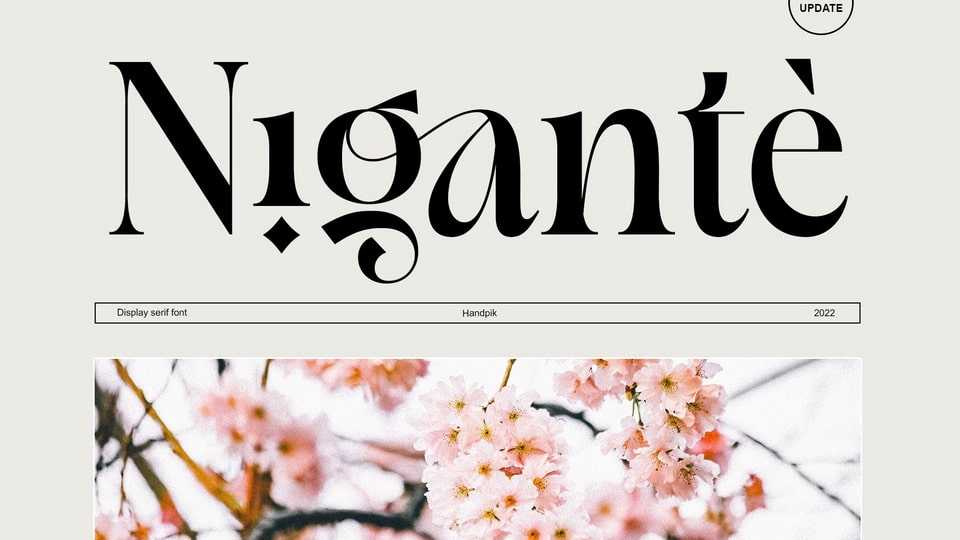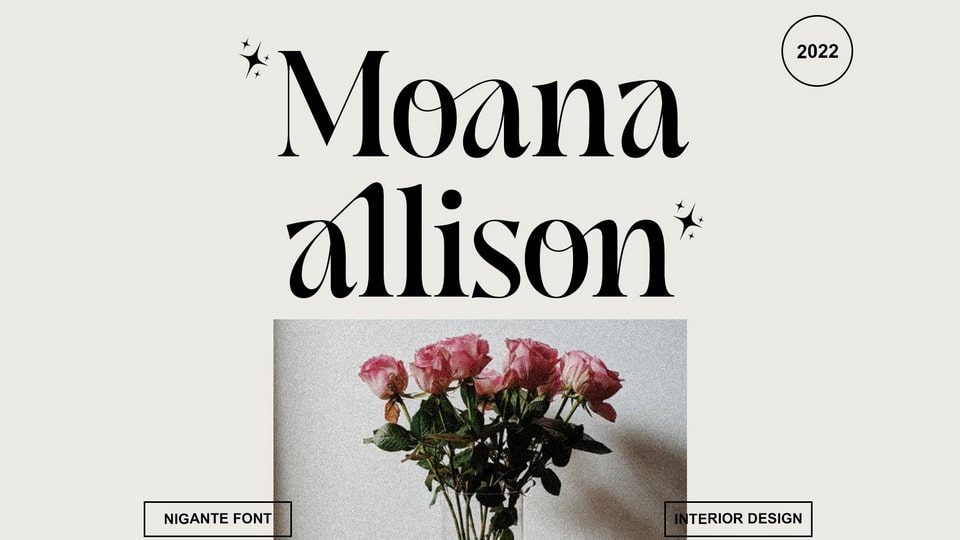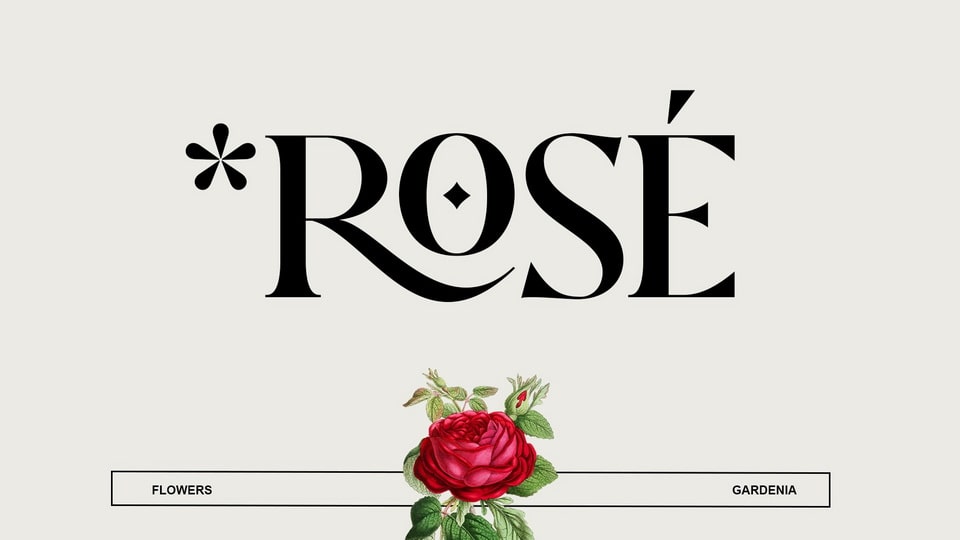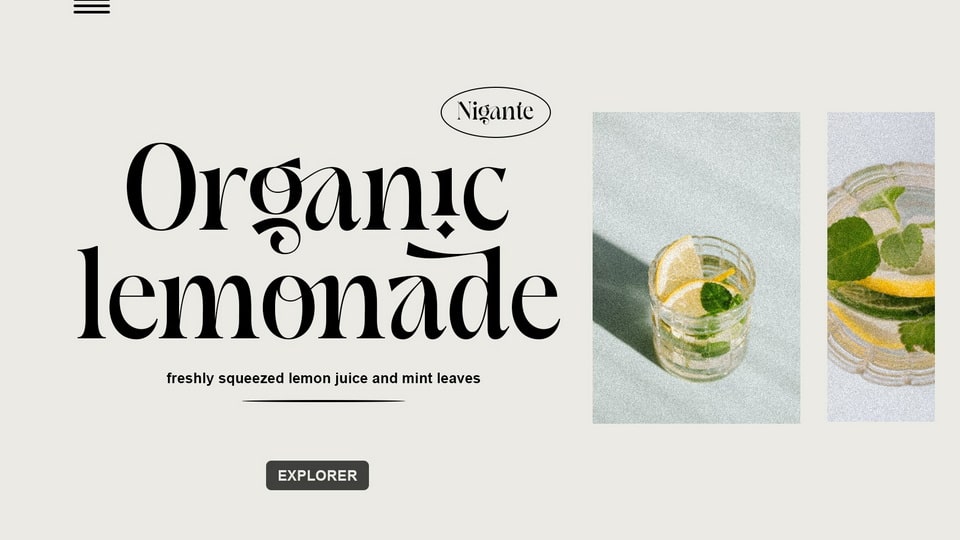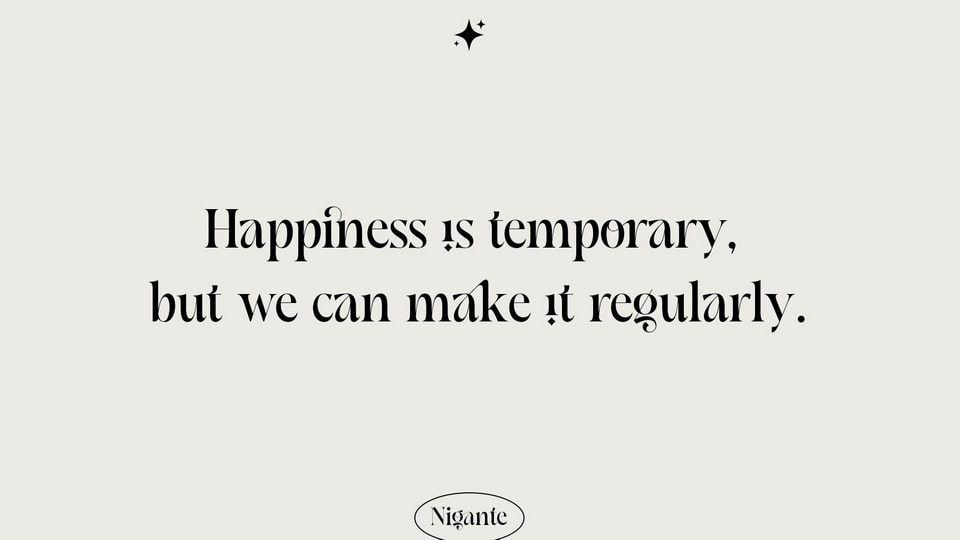
Nigante is an elegant and feminine serif display font. Its distinct and sophisticated letters make this font a masterpiece.
Nigante font is perfect for various projects like logos, branding, editorial and any project that needs an authentic and stylish look.